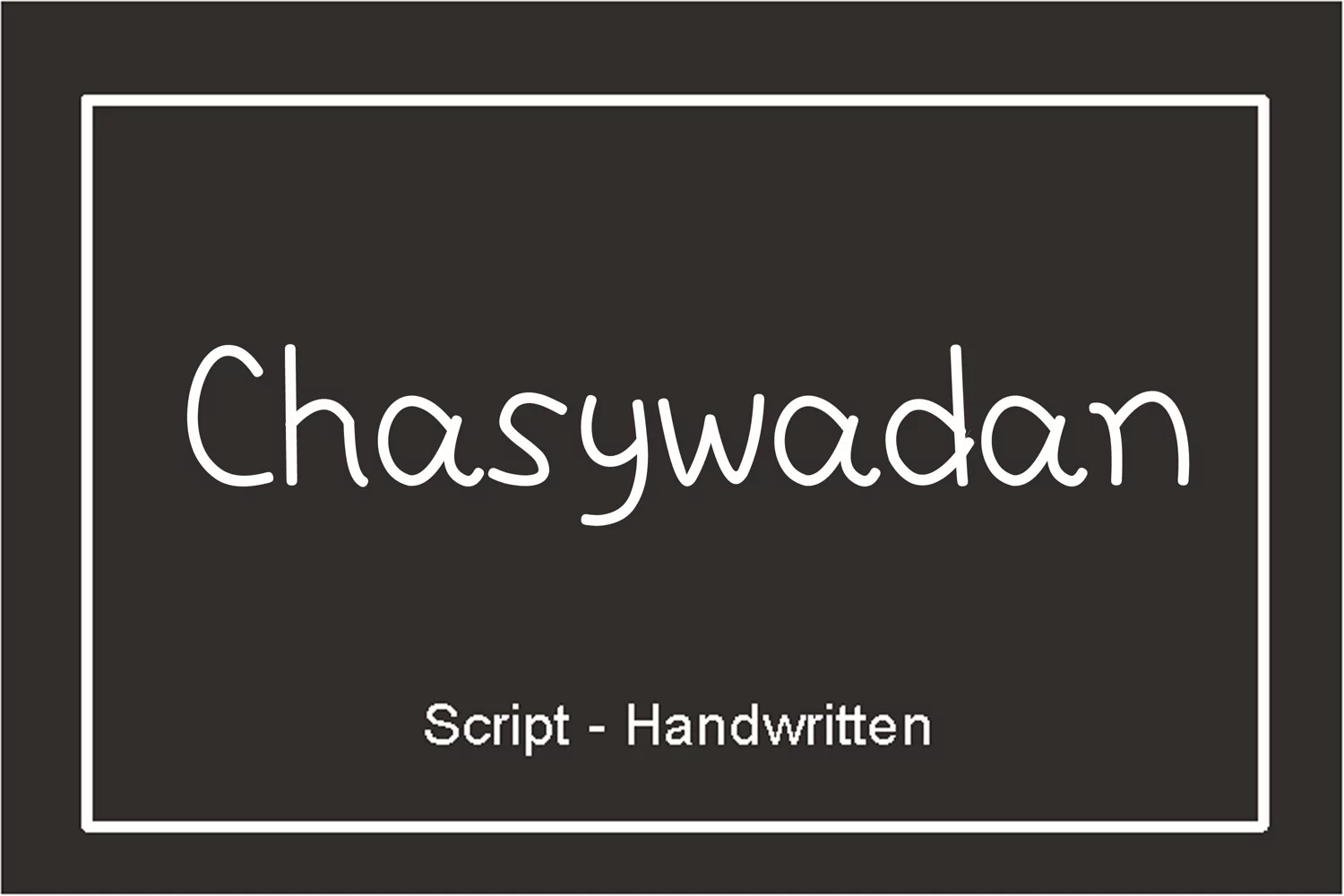
Chasywadan is a cute and casual handwritten font with an incredibly friendly feel. Whether you’re looking for fonts for Instagram or calligraphy scripts for DIY projects, this font will turn any creative idea into a true piece of art!